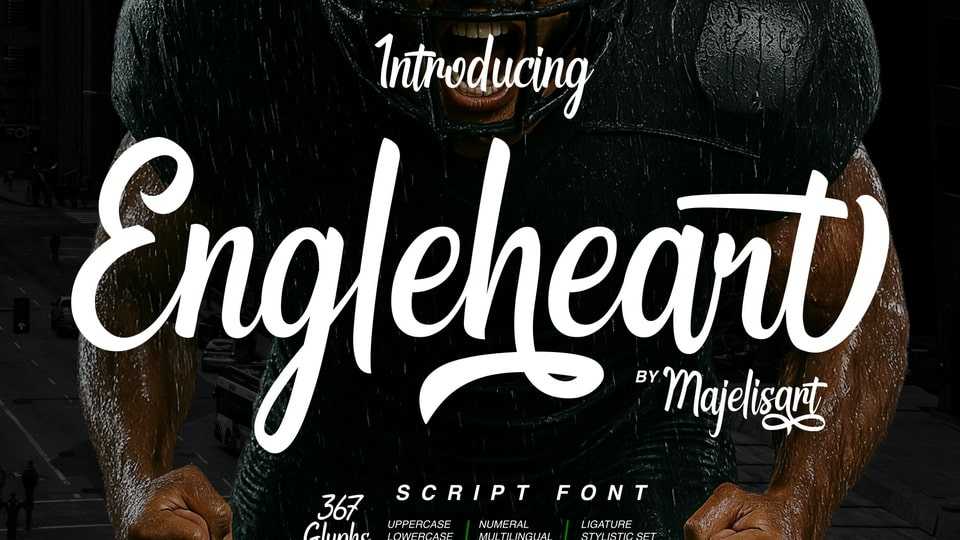
Download Engleheart font, a modern script style with a typographic touch, enhanced by subtle swash features that add elegance and beauty to its design.
Designer: Fikhry Mus Pratama